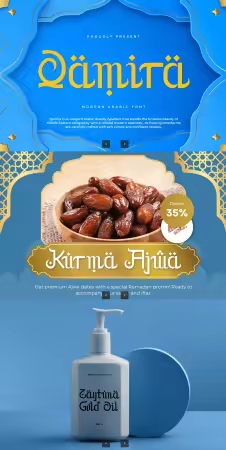
Qamira – Modern Arabic Font
Introducing Qamira, a modern Arabic font crafted to blend traditional Arabic letterform beauty with a clean, contemporary aesthetic. Designed with smooth curves, balanced strokes, and refined proportions, Qamira offers a fresh visual approach while respecting the elegance and cultural depth of Arabic typography.
Qamira supports Arabic writing standards with carefully designed characters, punctuation, and numerals, making it suitable for professional and creative use alike. Whether you’re working on a modern brand identity, cultural publication, or stylish promotional material, Qamira brings harmony between tradition and modern design.